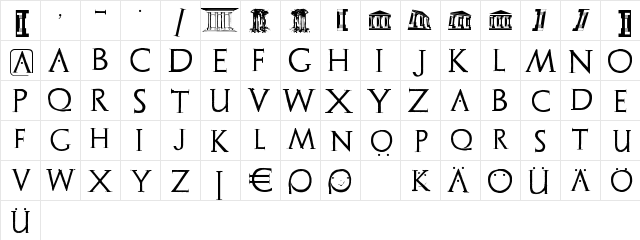
Archeologicaps Regular Font Preview
Archeologicaps Regular
Design Context for Archeologicaps Typeface
Archeologicaps offers clean, dependable letterforms without strong stylistic allegiance, making it a practical choice for designers who need flexibility.